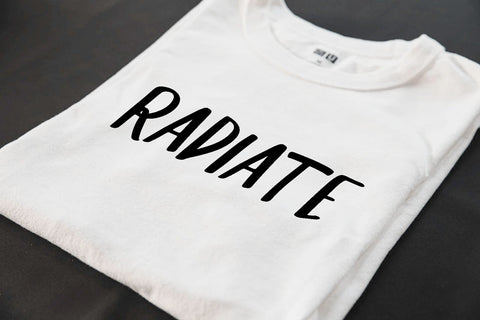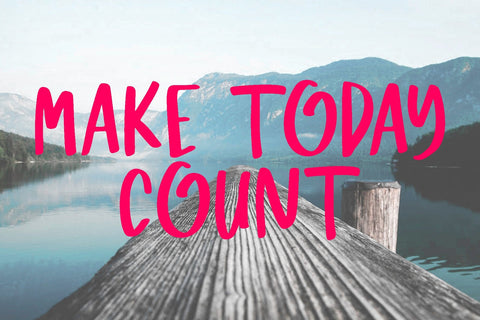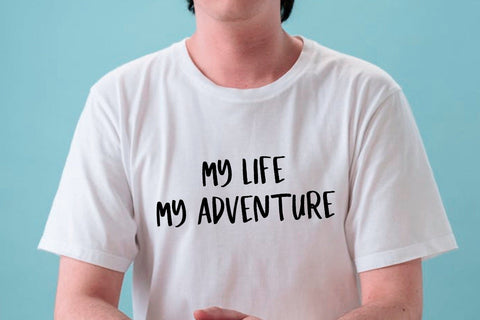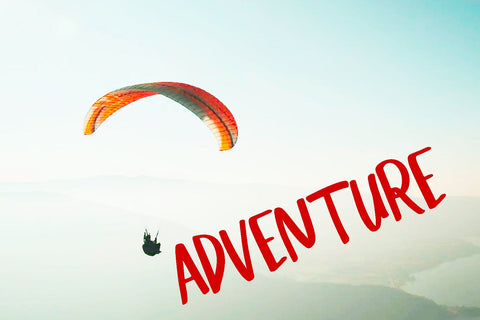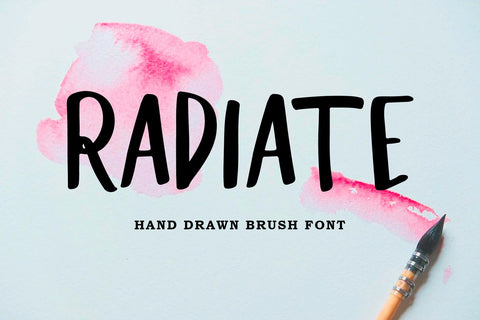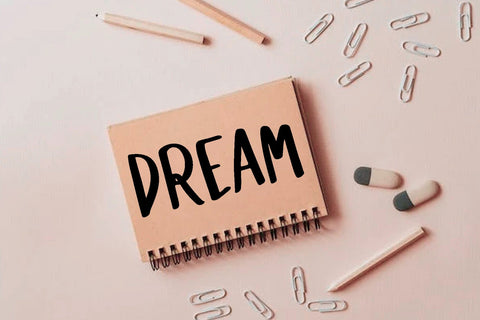
Radiate Brush Font
Radiate is a hand drawn all caps brush typeface. Files come in OTF and TTF format.
Radiate is great for:
- T-shirt Design
- Logo Design
- Video Titles
- Postcards
- Invitations
- Packaging
- Labels
- Posters
- Headers